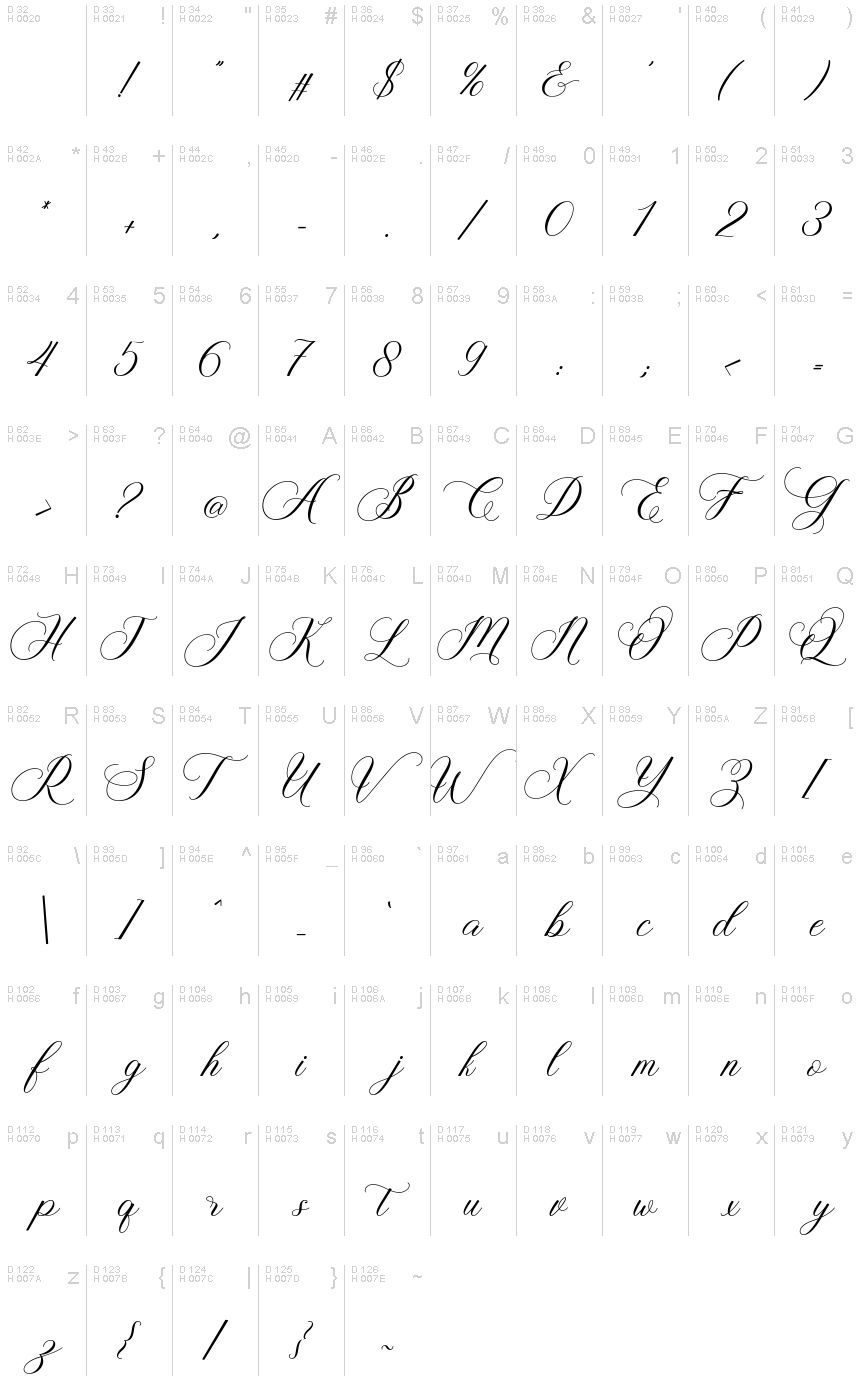
Sheylendra_DEMO
Sheylendra, designed by Makashi, is a testament to the timeless elegance of calligraphy. This light-weight font dances with a delicate grace, capturing the artistry of hand-lettering in its fluid contours and sweeping lines. Each character is crafted with an eye for balance and flow, making Sheylendra not just a typeface but a piece of art that brings a touch of sophistication to any project.
Its aesthetic charm lies in the subtle interplay between precision and spontaneity, evoking an air of bespoke luxury. Ideal for invitations, branding, and editorial design, Sheylendra's versatile style adapts effortlessly to both modern and classical contexts. This font invites creatives to express themselves with an air of refinement and distinction.